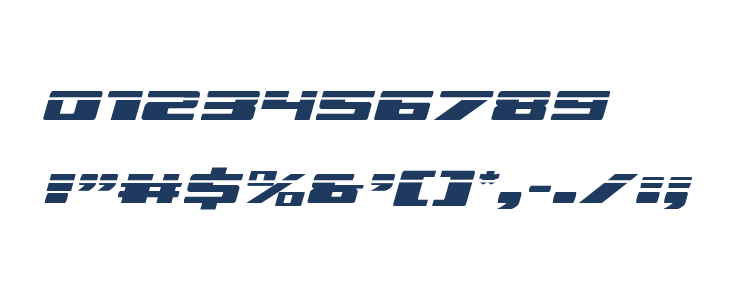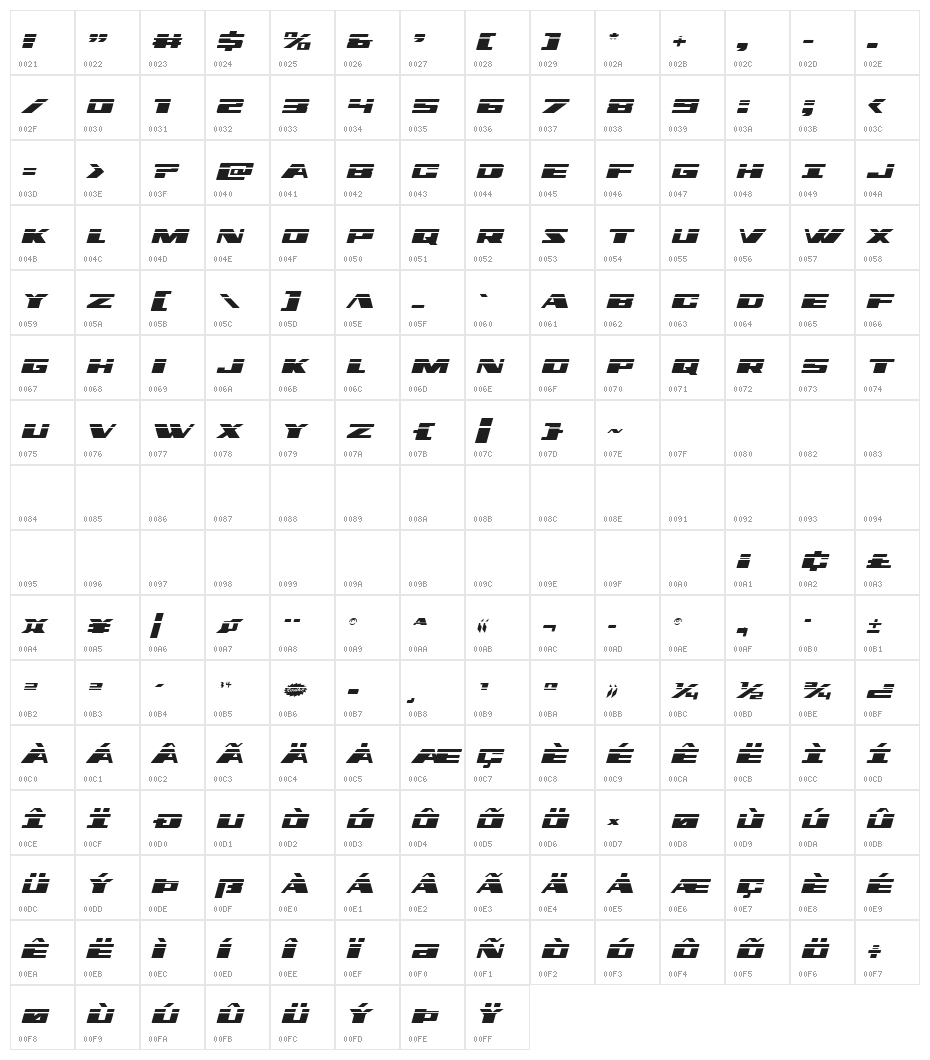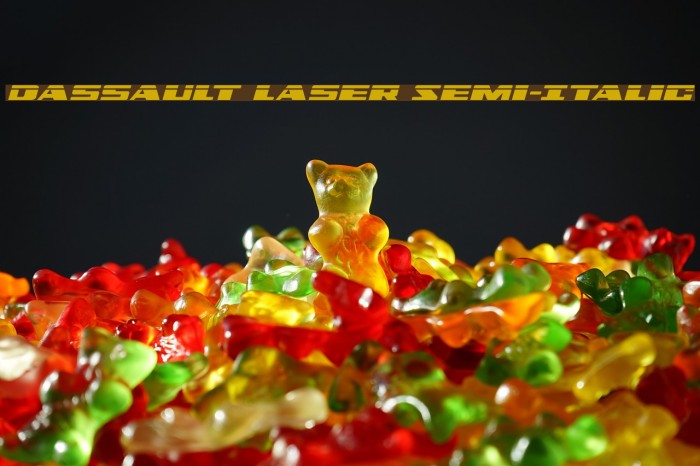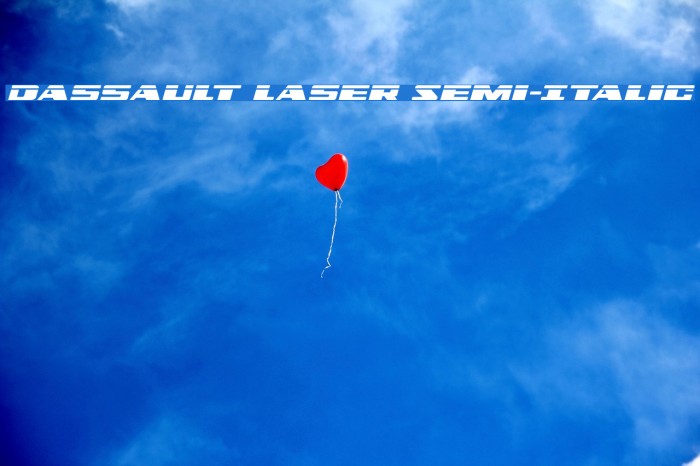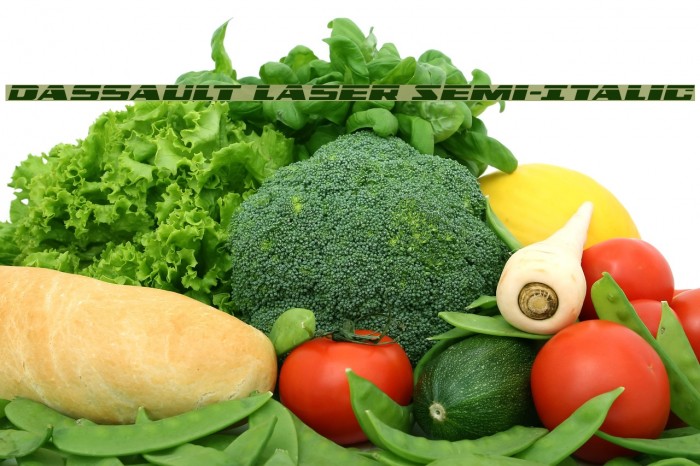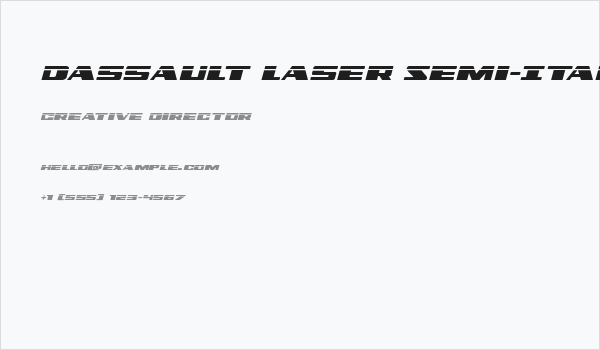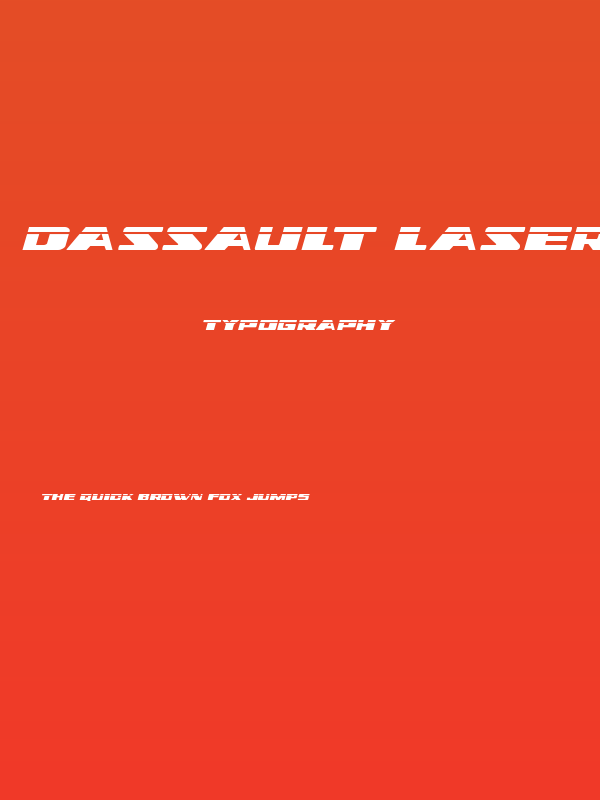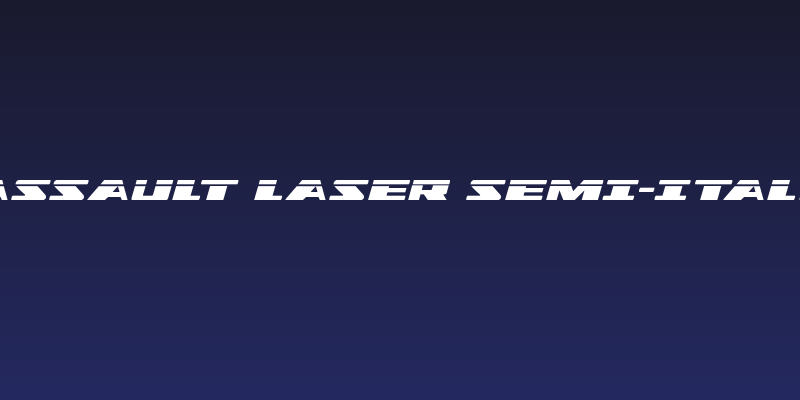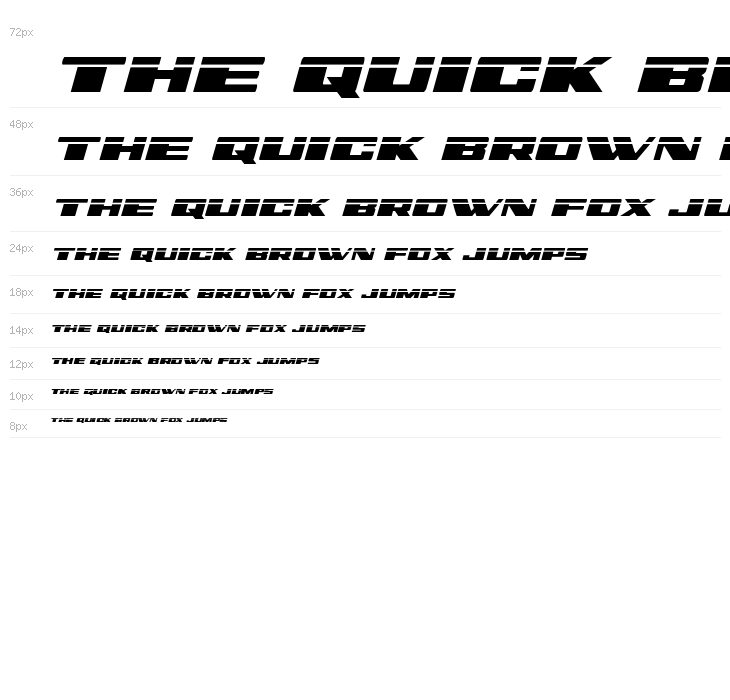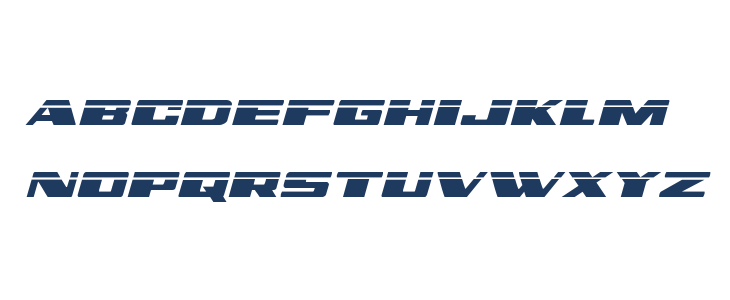
Dassault Laser Semi-Italic Font
Dassault Laser Semi-Italic Description
This font features a bold and dynamic design with a futuristic flair. The characters are sharply angled, giving them a sense of motion and speed. The semi-italic slant enhances this effect, making it ideal for projects that require a modern and energetic look. The uppercase letters are particularly striking, with wide, blocky forms that command attention. The numerals and special characters maintain this bold aesthetic, ensuring consistency across all text elements. The font's unique style makes it suitable for creative and impactful designs.
| Proposed Projects | Ideal for branding, sports team logos, video game titles, and sci-fi themed projects. |